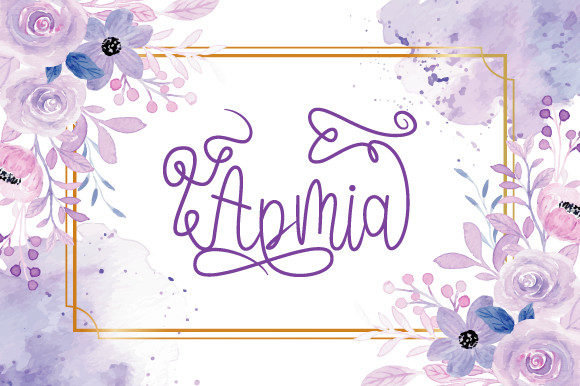
I’ll never forget the time I was working on a project for a client who wanted a font that was both trendy and whimsical. I spent hours scouring the internet for the perfect font, but nothing seemed quite right. That was until I stumbled upon Apmia, a wavy, uniquely shaped handwritten font that instantly caught my eye. In this article, I’ll share my experience with Apmia, its features, and how to make the most of this beautiful font.
First Impressions: What I Love About Apmia
Apmia is a game-changer for designers, crafters, and creative hobbyists looking for a font that adds a touch of personality to their work. Here are some things I love about Apmia:
- ✨ Wavy and whimsical design: Apmia’s unique shape and flowing lines make it perfect for projects that need a bit of flair.
- ✅ PUA encoded: With PUA encoding, accessing glyphs and swashes is a breeze, giving you even more creative freedom.
- 💫 Trendy and stylish: Apmia is perfect for modern designs, from social media graphics to branding materials.
- 🤔 Some characters may require adjustment: Depending on the word or phrase, you might need to tweak the spacing or kerning to get the perfect look.
The Story Behind Apmia: Designer Inspiration
While the true story behind Apmia’s creation remains a mystery, it’s easy to imagine a designer experimenting with wavy lines and unique letterforms, aiming to create a font that’s both trendy and timeless. Perhaps the designer was inspired by the flowing curves of handwriting, or the edgy feel of modern typography.
| Is Apmia suitable for body text? | While Apmia is beautiful, its unique design might make it better suited for headings and titles rather than body text. |